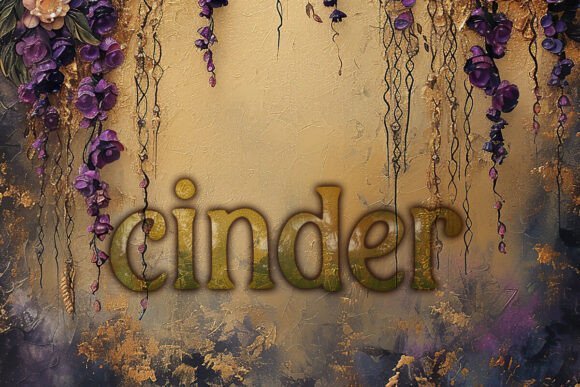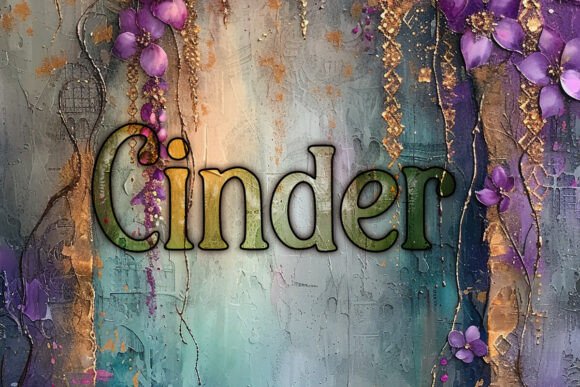
Where Creativity Meets Style: Discover the Magic of Cinder Font
Have you ever stared at a blank canvas, struggling to find the perfect font to bring your vision to life? It’s a moment we’ve all been there – the blank page staring back, taunting us to create something truly special. But what if you had the perfect tool to turn that blank canvas into a masterpiece?
Enter Cinder Font, a typography wonder that’s designed to add a touch of elegance to any medium. Whether you’re a designer, a crafter, or a social media guru, Cinder Font is the perfect companion to help you establish a strong, distinctive identity. Its bold character strokes, seamless adaptability, and warmth make it a valuable asset for any creative project.
Cinder Font Key Features
- Font Family: Cinder is a sans-serif font family designed for digital use, making it suitable for screens and digital media.
- Character Set: Includes a comprehensive character set, covering multiple languages, including Latin, Cyrillic, and Greek scripts.
- Weight and Style Options: Offers a range of weights (from Thin to Black) and styles (Regular, Italic, Bold, and Bold Italic) for versatility in design applications.
- Unique Characteristics: Features a clean and modern design aesthetic, with distinctive geometric shapes and a high x-height, making it highly legible in digital environments.
Cinder Font Review
I recently had the chance to work with the Cinder font, and I must say it’s a fascinating choice for designers looking for something unique.
- The Cinder font has a distinctive, elegant feel that works well for titles and headings.
- The font’s subtle flair at the end of each stroke adds a touch of sophistication and makes it perfect for luxury brands or high-end publications.
- Cinder font is highly legible, making it a great choice for long blocks of text, such as articles or essays.
- The font may be a bit too ornate for some designs, making it difficult to read at small sizes or in certain contexts.
- The Cinder font’s unique flair may not be suitable for designs that require a clean, minimalist aesthetic.
- The font’s compatibility may be limited on older operating systems or browsers, so it’s essential to test it thoroughly before use.
Overall, I’d say the Cinder font is a solid choice for designers who want to add some visual interest to their projects. However, it’s essential to carefully consider the context and limitations before using it.
Cinder Font is ideal for:
- Brand logos and identity design
- Book covers and publishing materials
- Advertising and marketing campaigns
Remember to use Cinder Font consistently throughout your design to create a cohesive and professional look.